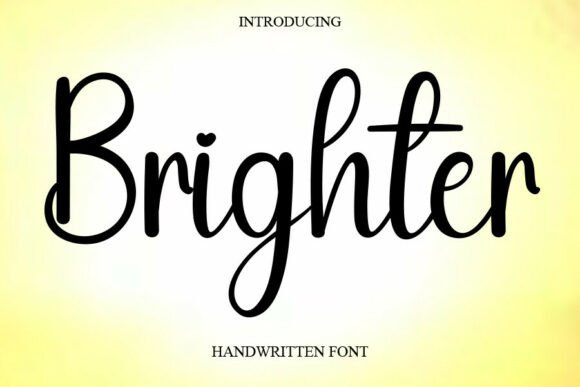
Brighter Font: Adding a Touch of Warmth and Personality to Your Designs
The world of typography is vast and diverse, with numerous font styles to choose from, each with its unique characteristics and uses. Among these, the Brighter font stands out for its friendly, casual, and charming feel, making it an excellent choice for various design projects. In this article, we’ll delve into the features and benefits of the Brighter font, exploring its uses, and how it can elevate your designs.
What is Brighter Font?
Brighter is a tall, sweet handwritten font that exudes a sense of warmth and approachability. Its friendly and casual feel makes it perfect for designs that require a personal touch. This font is designed to add a charming, handcrafted feel to your projects, making it an excellent choice for bakery branding, food blogs, birthday invites, and more.
Key Features of Brighter Font
- Handwritten style: Brighter font boasts a beautiful, handwritten style that adds a personal touch to your designs.
- Tall and elegant: The font’s tall and elegant structure makes it perfect for headings, titles, and other design elements that require a touch of sophistication.
- Friendly and casual feel: Brighter font has a friendly and casual feel, making it ideal for designs that require a approachable and welcoming tone.
- Charming and handcrafted: The font’s charming and handcrafted feel makes it perfect for designs that require a unique and personalized touch.
Uses of Brighter Font
The Brighter font is versatile and can be used in various design projects, including:
1. Bakery Branding
Bakeries and food-related businesses can benefit from using the Brighter font in their branding. The font’s warm and inviting feel makes it perfect for creating a cozy and welcoming atmosphere, perfect for bakeries, cafes, and restaurants.
2. Food Blogs
Food bloggers can use the Brighter font to add a personal touch to their blog’s typography. The font’s friendly and casual feel makes it perfect for creating a approachable and engaging tone.
3. Birthday Invites
The Brighter font is an excellent choice for birthday invites and other celebration cards. The font’s charming and handcrafted feel makes it perfect for creating unique and personalized invitations.
4. Packaging Design
The Brighter font can also be used in packaging design, adding a touch of warmth and personality to product labels and packaging.
Benefits of Using Brighter Font
Using the Brighter font in your designs offers several benefits, including:
1. Unique and Personalized Touch
The Brighter font adds a unique and personalized touch to your designs, setting them apart from others.
2. Emotional Connection
The font’s friendly and casual feel creates an emotional connection with your audience, making them more engaged and invested in your brand or message.
3. Versatility
The Brighter font is versatile and can be used in various design projects, from bakery branding to packaging design.
4. Easy to Read
The font’s clear and elegant structure makes it easy to read, ensuring that your message is communicated effectively.
Tips for Using Brighter Font
To get the most out of the Brighter font, follow these tips:
1. Use it for Headings and Titles
The Brighter font is perfect for headings and titles, adding a touch of elegance and sophistication to your designs.
2. Pair it with Other Fonts
Pair the Brighter font with other fonts to create a unique and visually appealing typography.
3. Experiment with Colors
Experiment with different colors to find the perfect match for your brand or message.
4. Keep it Simple
Keep your design simple and clean, allowing the Brighter font to take center stage.
The Brighter font is a beautiful and versatile font that can add a touch of warmth and personality to your designs. Its friendly and casual feel makes it perfect for bakery branding, food blogs, birthday invites, and more. By following the tips outlined in this article, you can get the most out of the Brighter font and create stunning designs that engage and delight your audience.